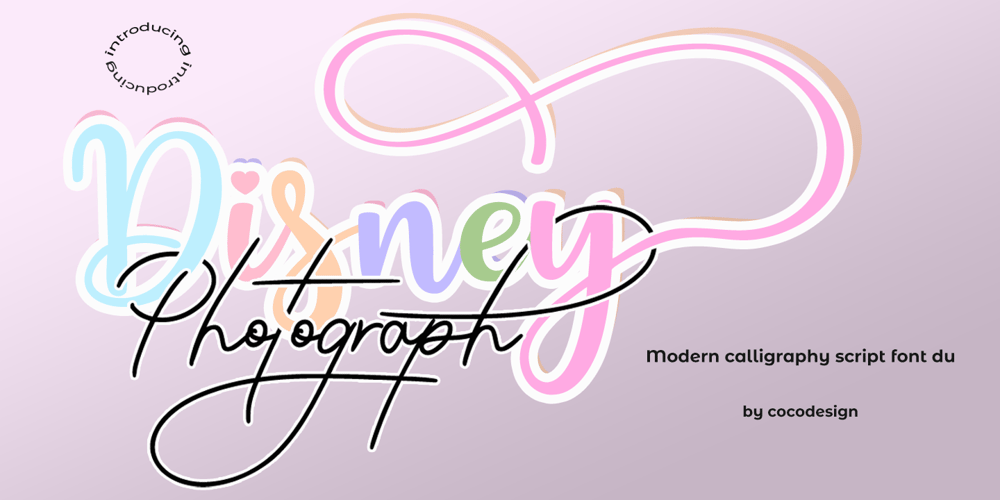
Disney photograph Font Family was designed by Muhammad Zaini and published by Cocodesign. Disney photograph contains 2 styles and family package options. Introducing “Disney photograph font duo” an alluring pair of Handwritten fonts meticulously crafted for diverse applications. It serves as an ideal choice for endorsing various products, designing striking logos, packaging labels, expressing unique brand identities, and creating captivating headlines or signs. Elevate the classic charm of your wedding invites, diversify your signatures or breathe life into splendid book covers with this design. Add a sprinkle of sophistication to your posters, let your quotes speak volumes, and engage audiences with much more. Dive into the versatile world of Disney photograph font duo and let your creativity shine.